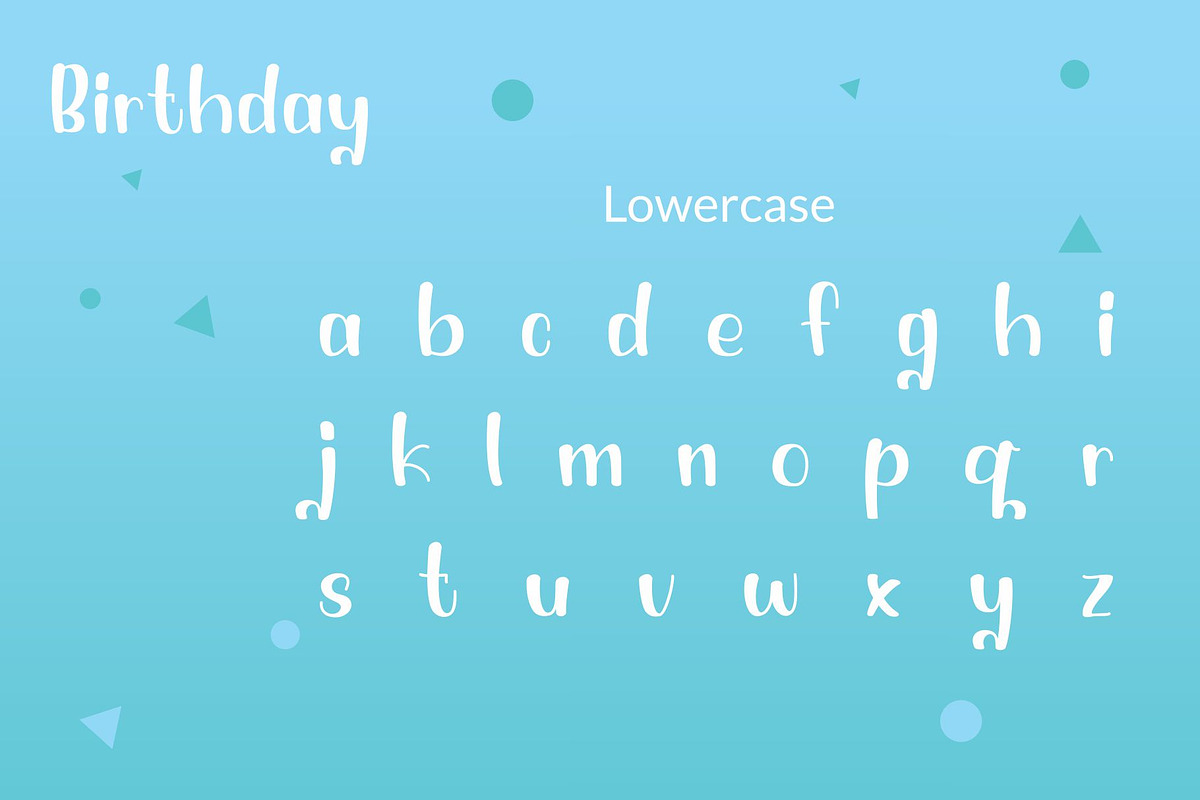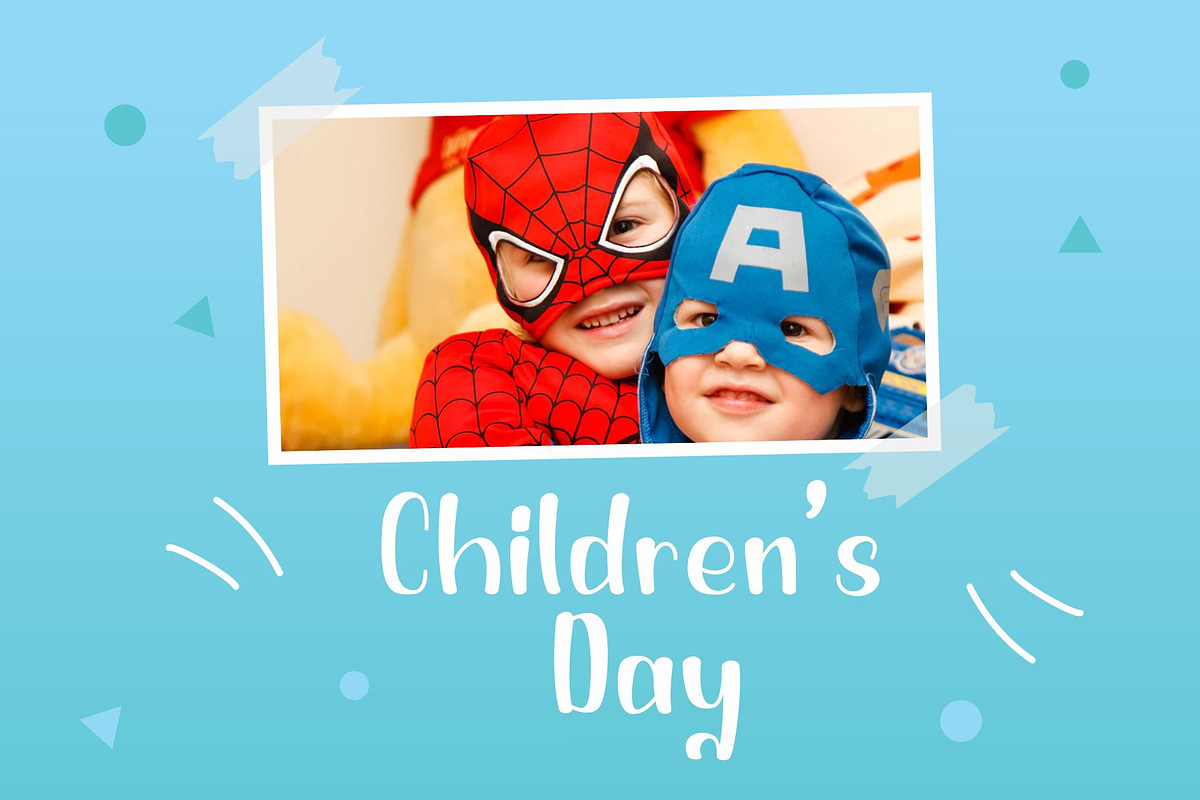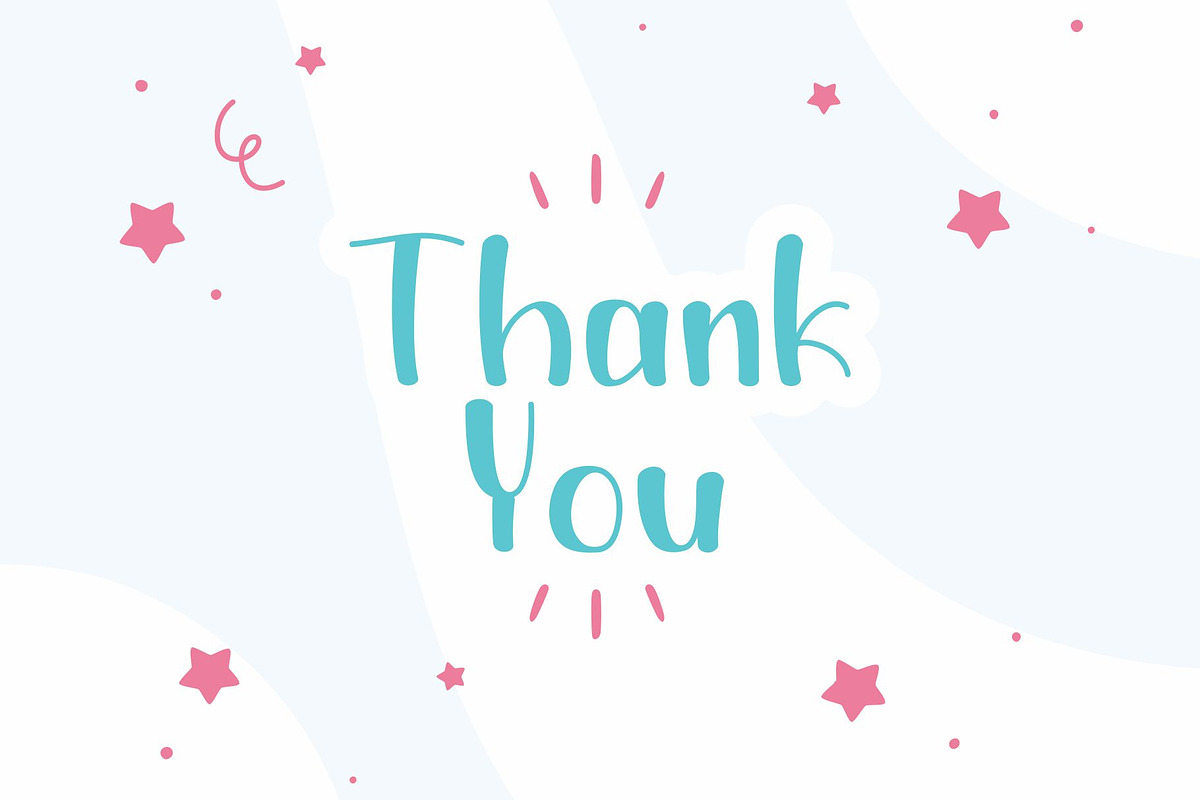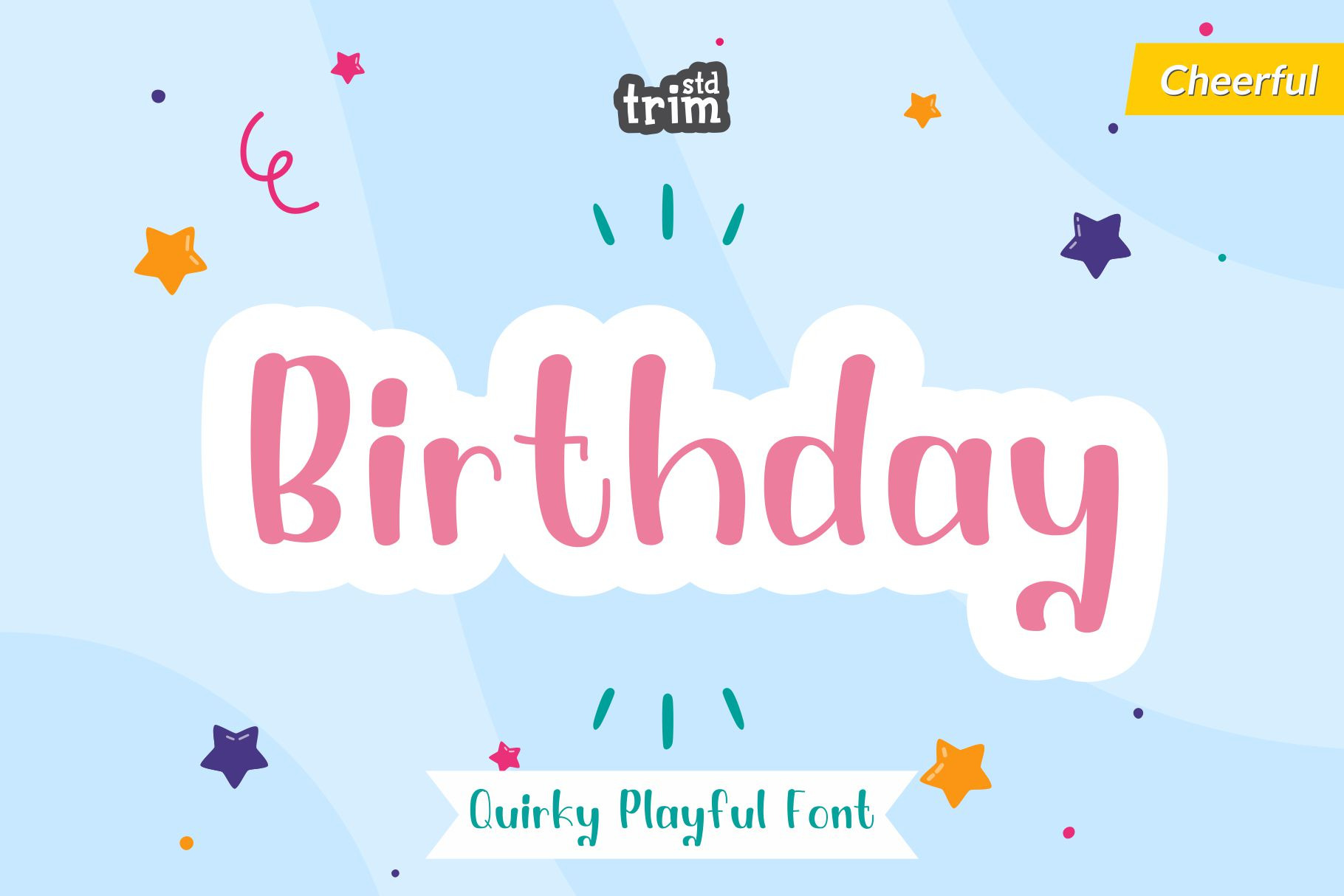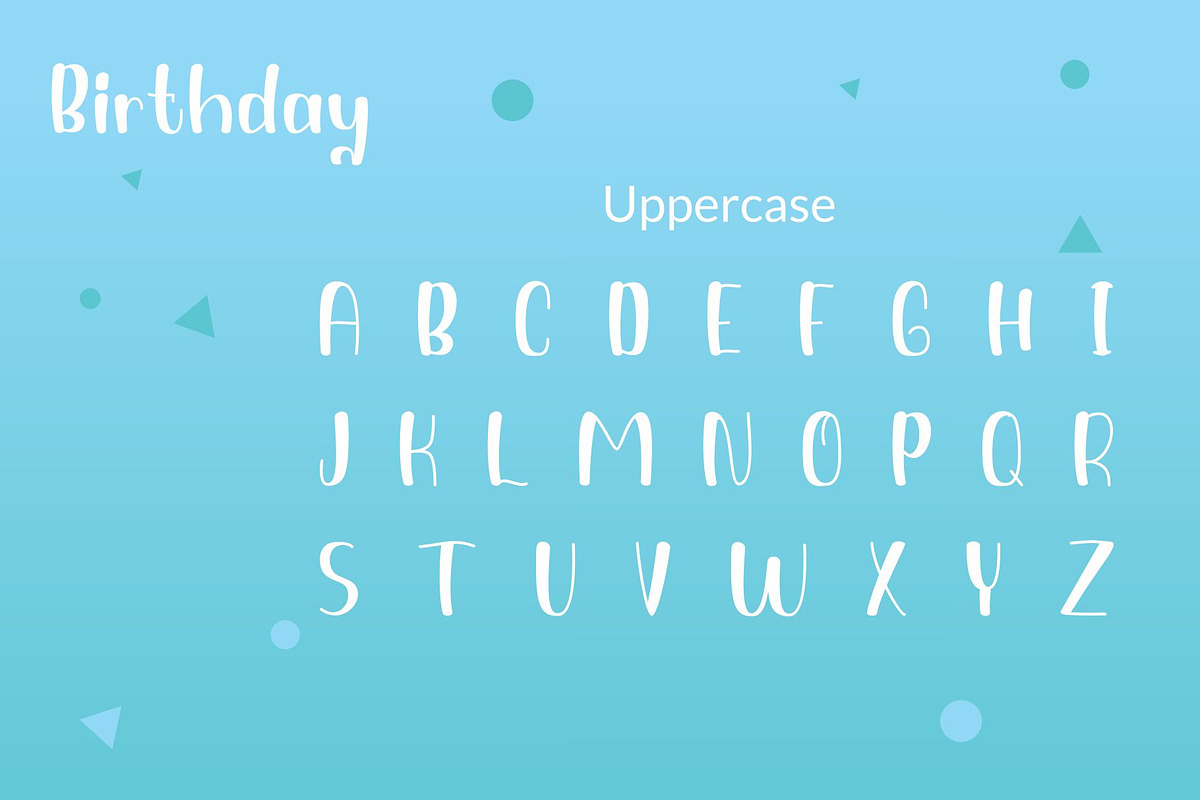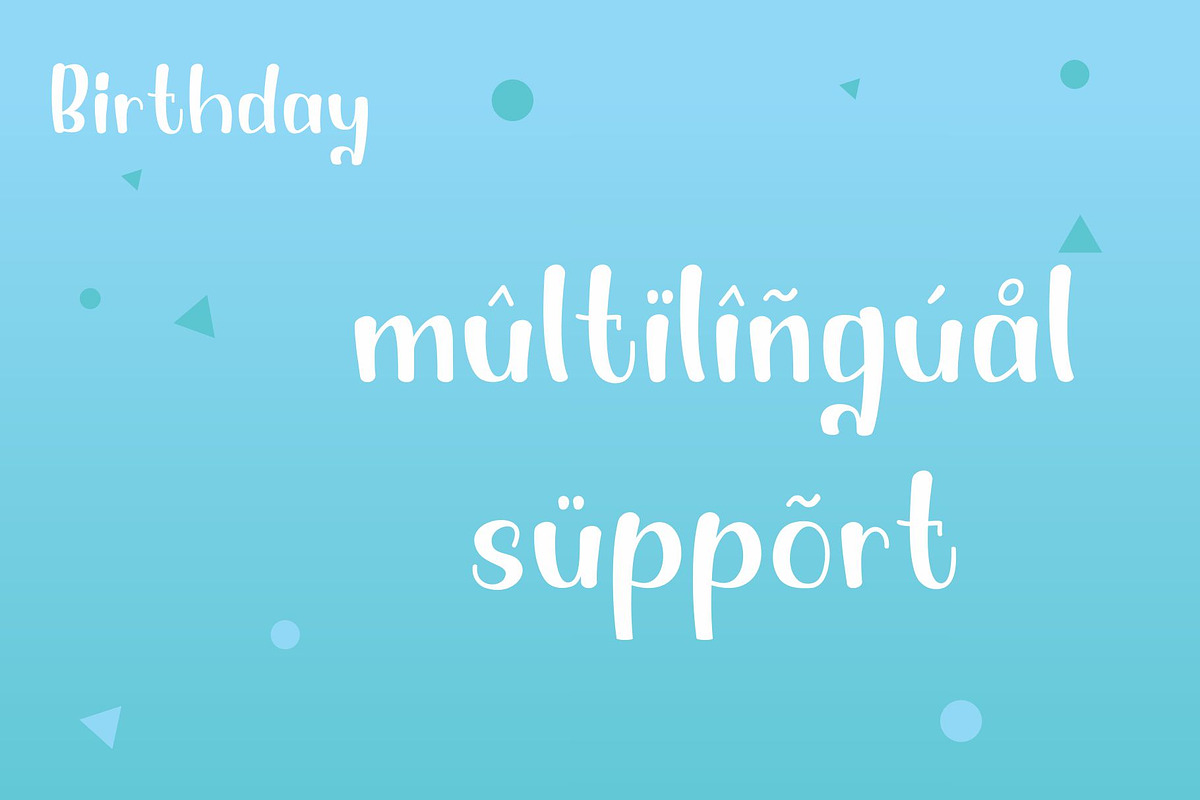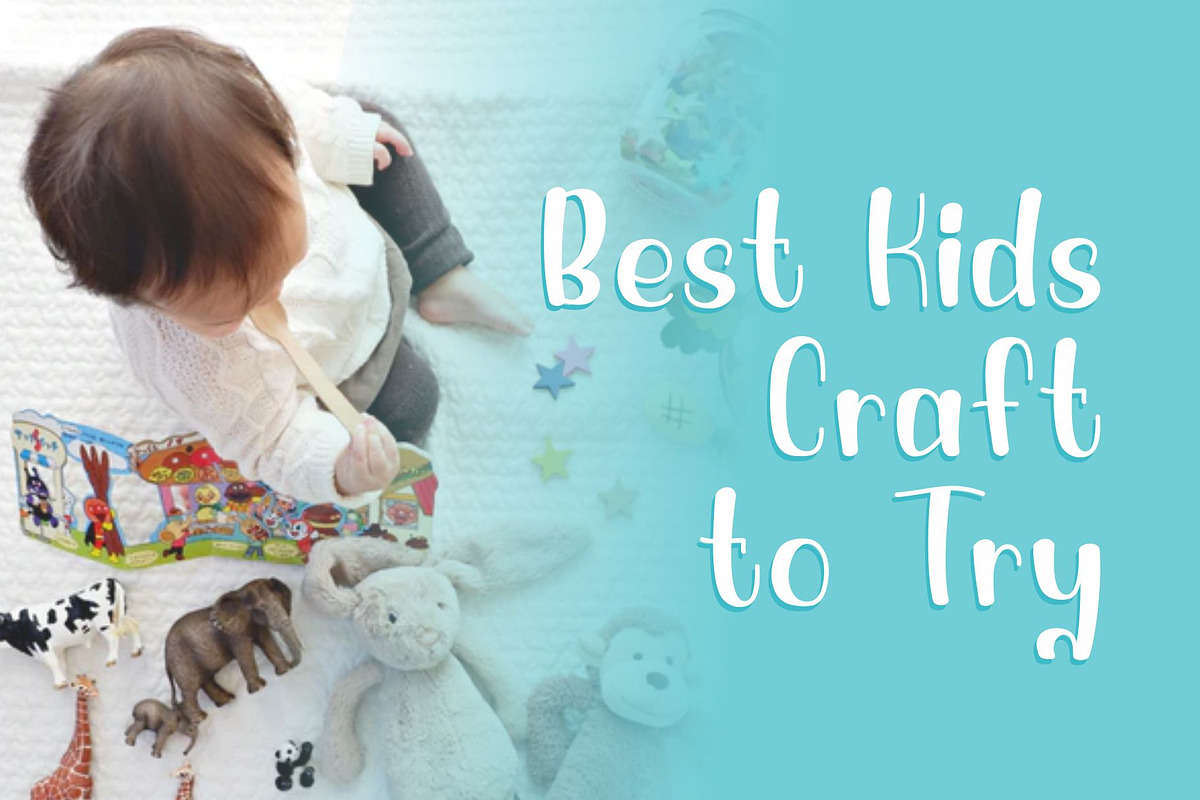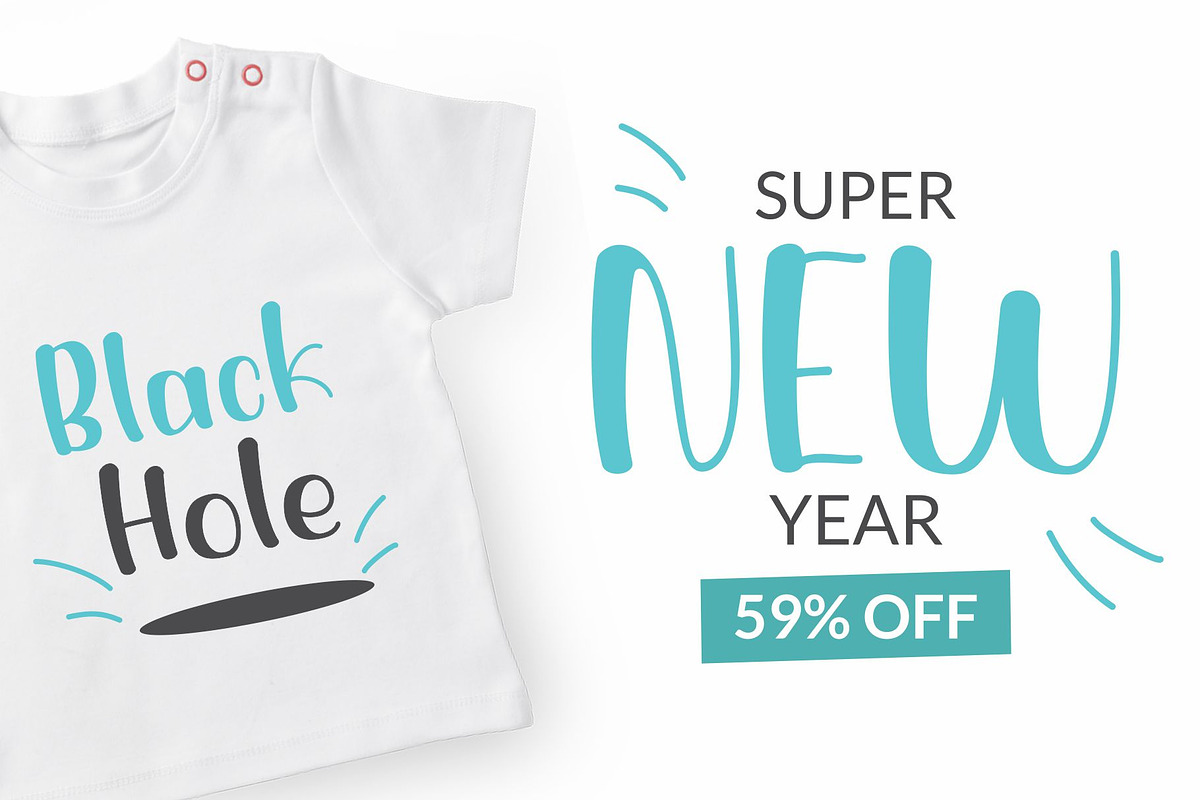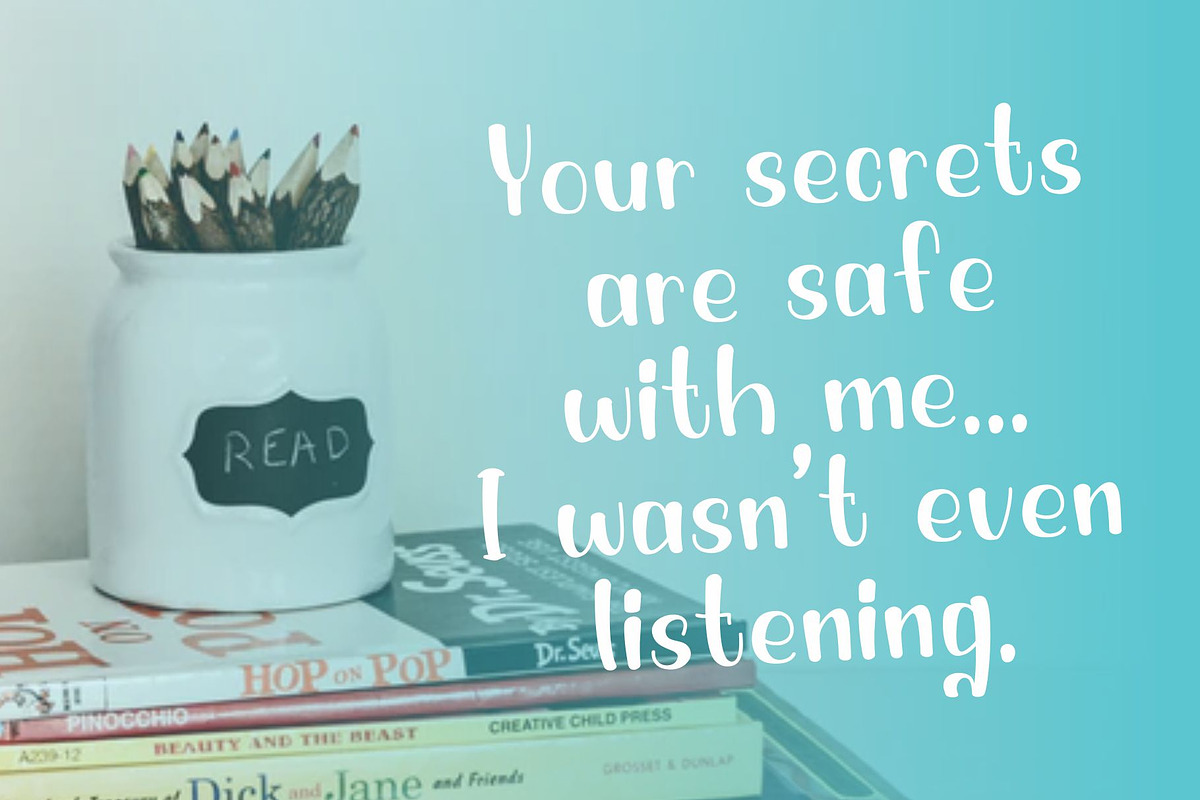
Birthday Quirky Playful Display Font
Birthday is a quirky display font, which will bring out a happy and child-like feel in any crafting project. Fall in love with its whimsical appeal!
Its perfectly suited for crafter and graphic artist to complete their design such as invitation, advertisement, poster, logo, birthday, product sign, and many more!
Birthday Font also Lightweight, even so contains All Standard glyphs and punctuations